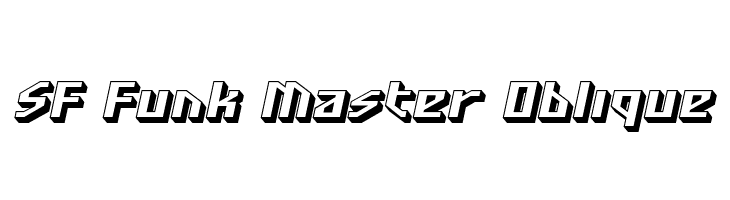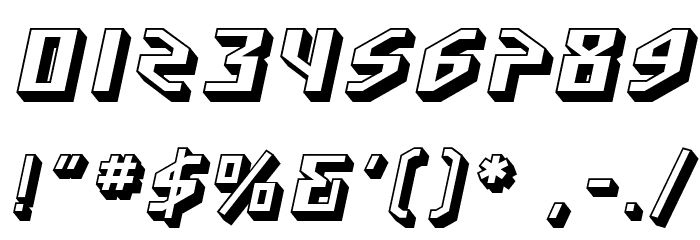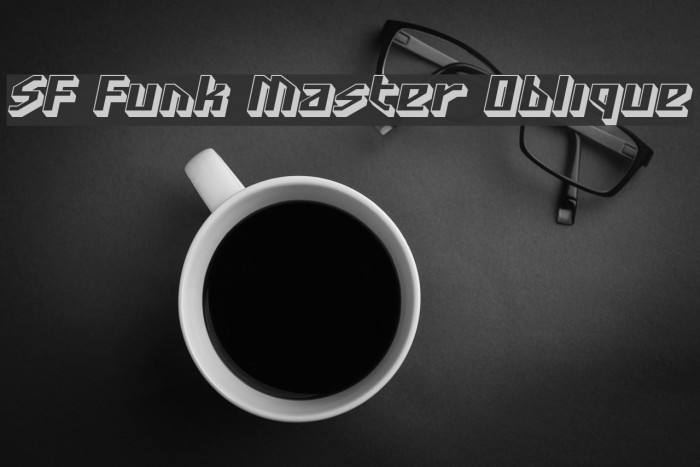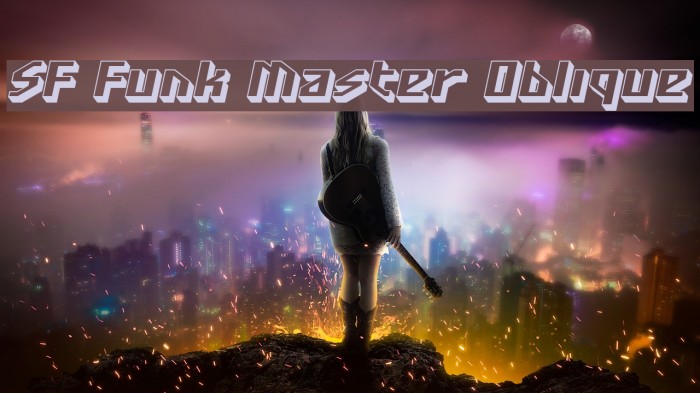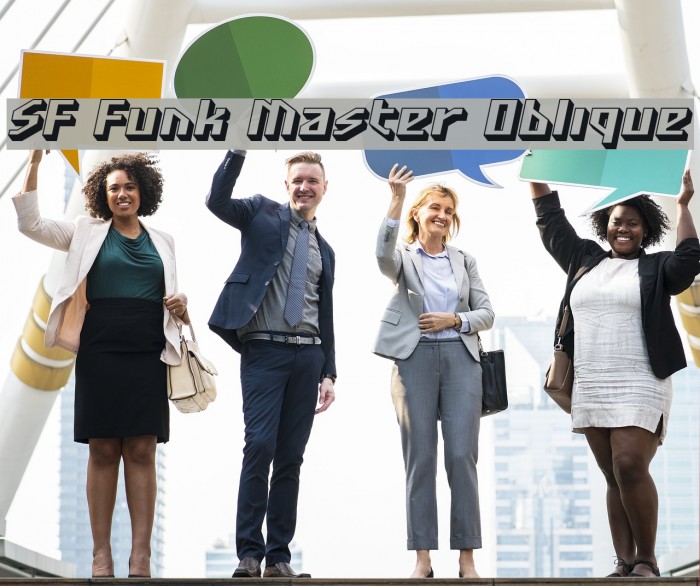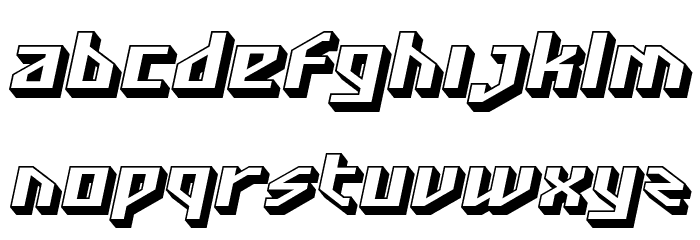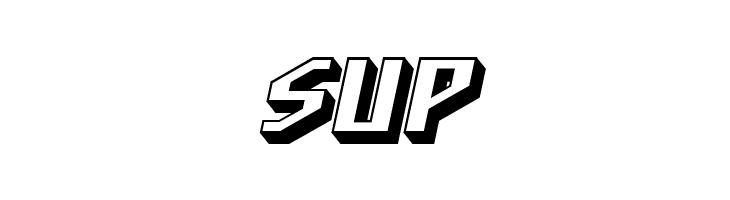
SF Funk Master Oblique Font
SF Funk Master Oblique Description
This font features a bold, dynamic style with a strong 3D effect, giving each character a sense of depth and movement. The letters are slanted, adding an oblique dimension that enhances its energetic and modern appeal. The strokes are thick and consistent, providing a robust and impactful visual presence. The angular design of the characters contributes to a futuristic and edgy look, making it stand out in any design. The font includes a full set of uppercase and lowercase letters, numbers, and a variety of special characters, ensuring versatility in usage.
Proposed ProjectsIdeal for projects that require a bold statement, such as posters, video game titles, album covers, and branding for tech or sports-related products.